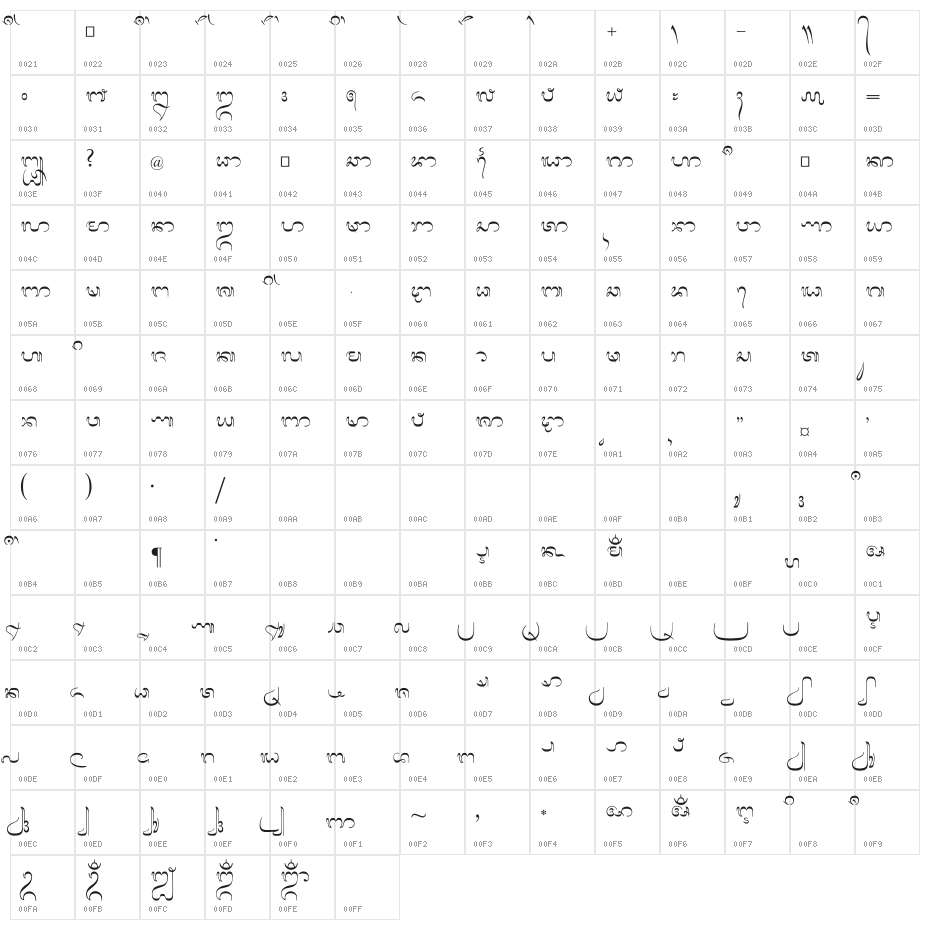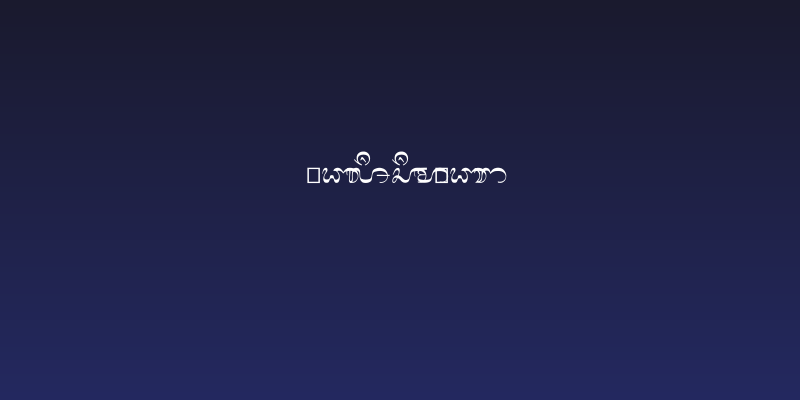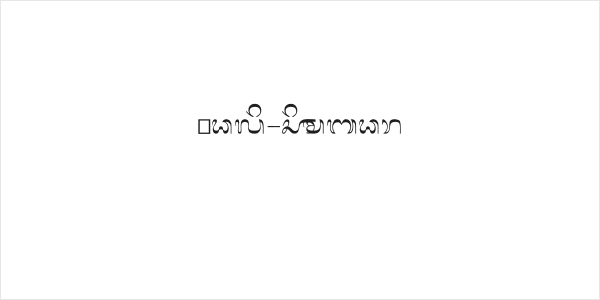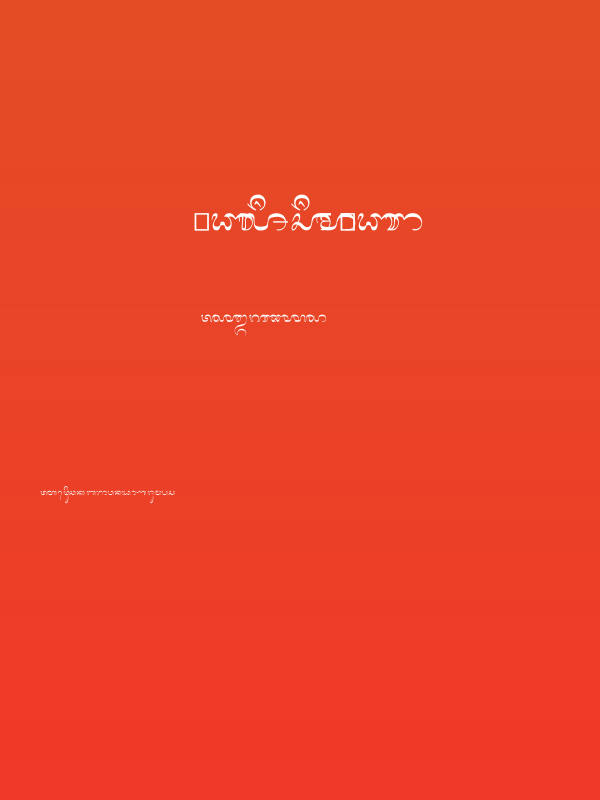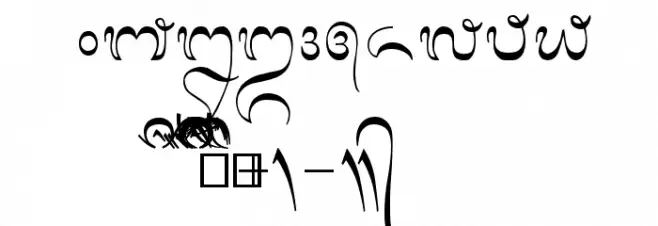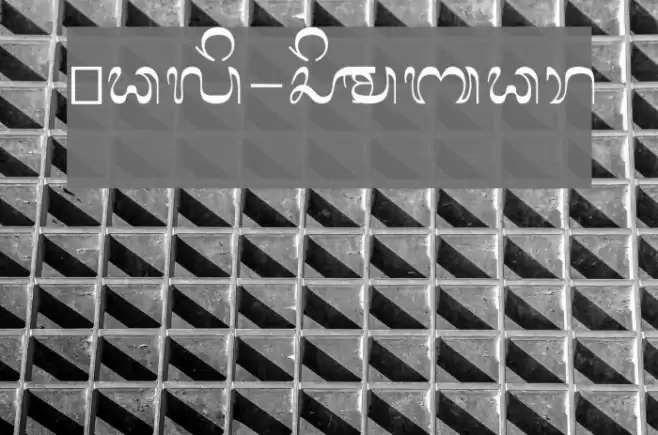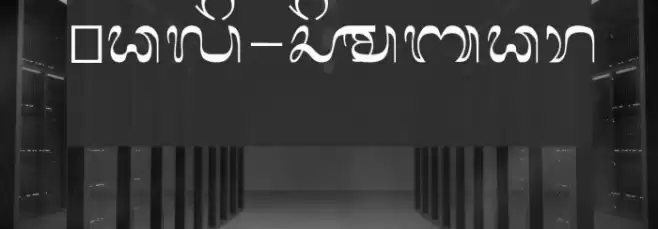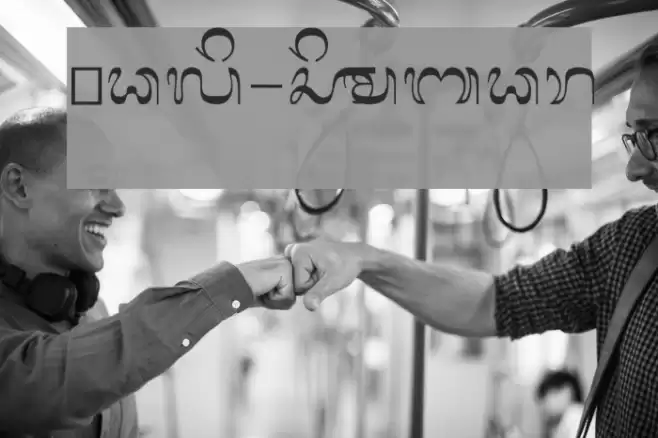
Bali-Simbar Font
Bali-Simbar Description
This font is a decorative script that draws inspiration from traditional Balinese script styles. It features intricate curves and flourishes, giving it an ornate and elegant appearance. The characters are connected with smooth, flowing lines, creating a sense of continuity and grace. The overall design is highly stylized, with a focus on aesthetic appeal rather than readability. This font is likely used for artistic or cultural projects where visual impact is more important than text clarity. The complex shapes and embellishments make it suitable for decorative purposes, such as invitations, posters, or cultural event materials.
| Use Case | Logos, Decorative text |
| Proposed Projects | Ideal for cultural event materials, invitations, and decorative posters. |